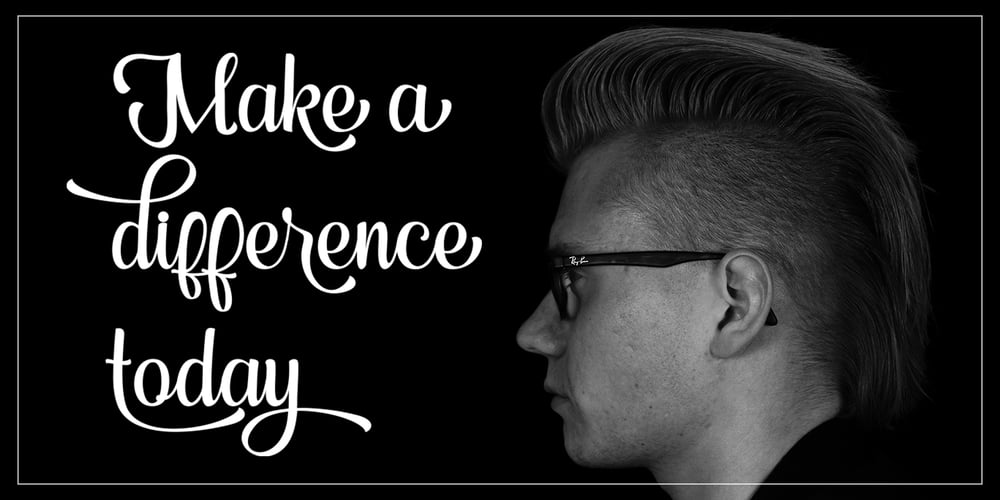
Bedfore Script
Bedfore Script font
Bedfore Script Font Family was designed by Samsul Kamal and published by Lettersams. Bedfore Script contains 1 styles and family package options. Bedfore Script is a romantic typeface. vintage script font that is thick, elegant & fun. very suitable for various purposes and wants. Like logo, label, wedding invitation, brand, t-shirt, letterhead, nameplate, news, book covers, magazine, oster, badge, etc. Bedfore Script features OpenType stylistic alternates, ligatures and International support for most Western Languages is included. To enable the OpenType Stylistic alternates, you need a program that supports OpenType features such as Adobe Illustrator CS, Adobe Indesign & CorelDraw X6-X7, Microsoft Word 2010 or later versions. Bedfore Script is coded with PUA Unicode, which allows full access to all the extra characters without having special designing software. Mac users can use Font Book , and Windows users can use Character Map to view and copy any of the extra characters to paste into your favourite text editor/app. If you need help or have any questions, please let me know or via email “lettersams@gmail.com” I’m happy to help 🙂 Thanks & Happy Designing!